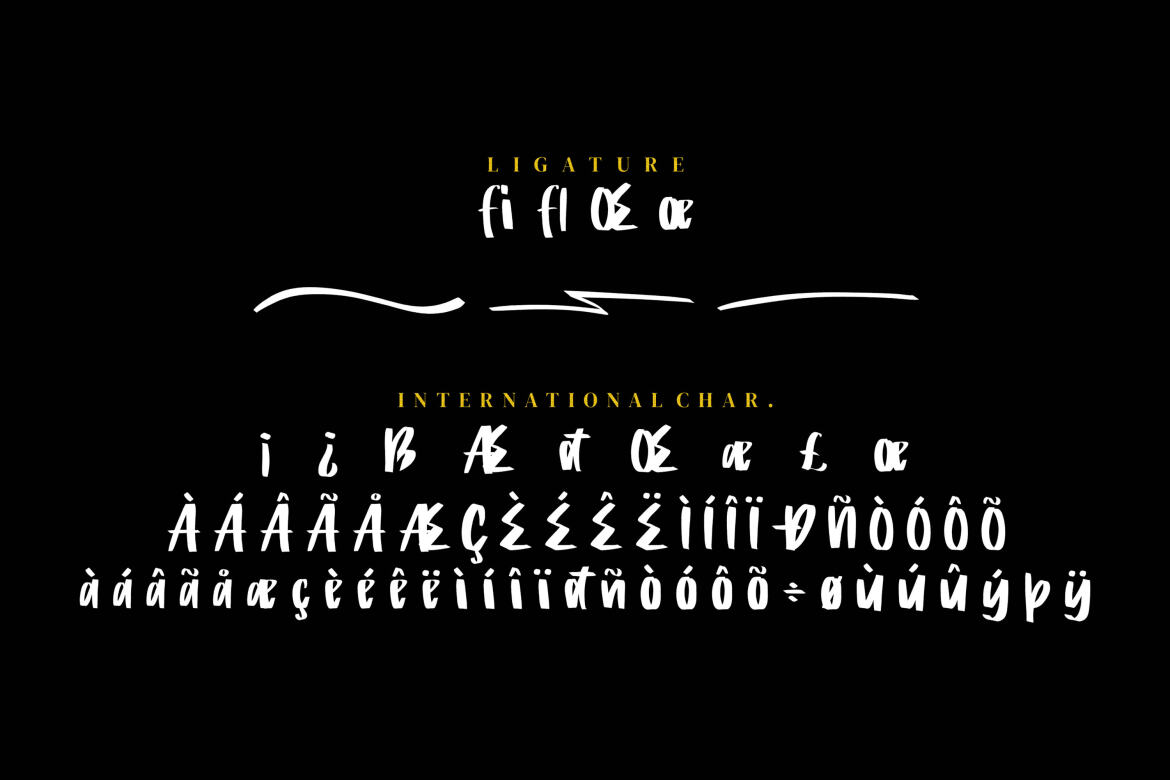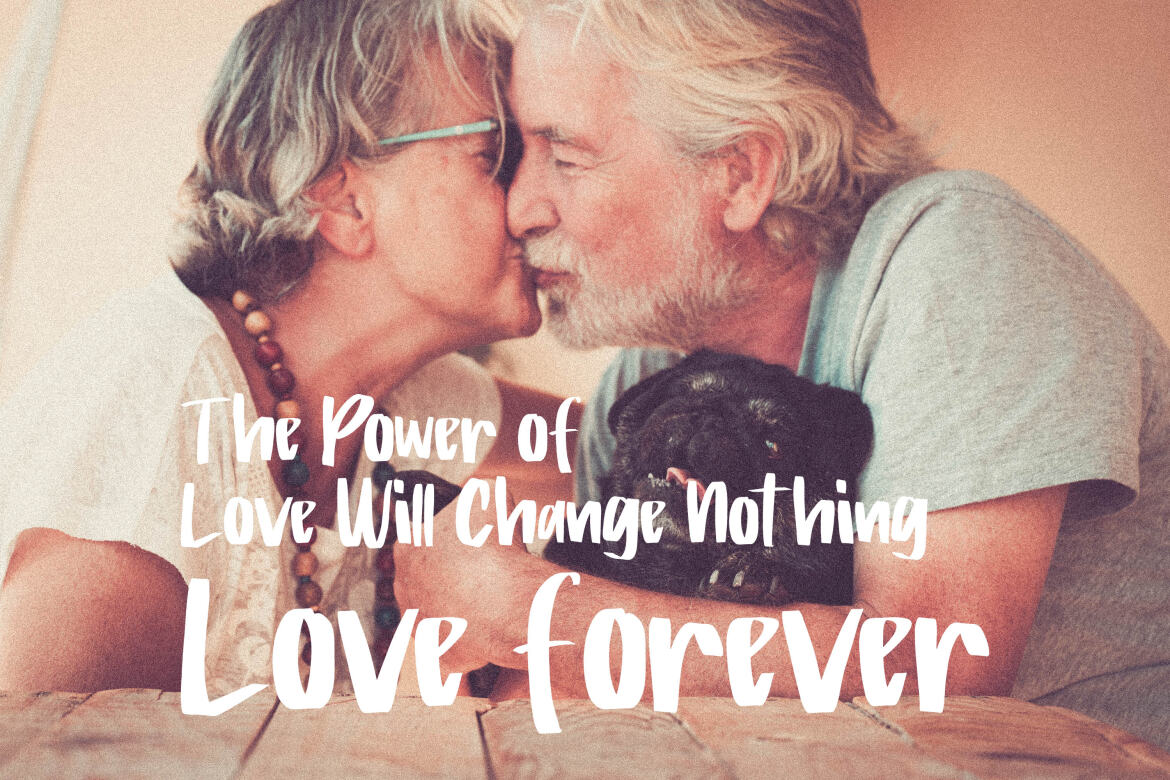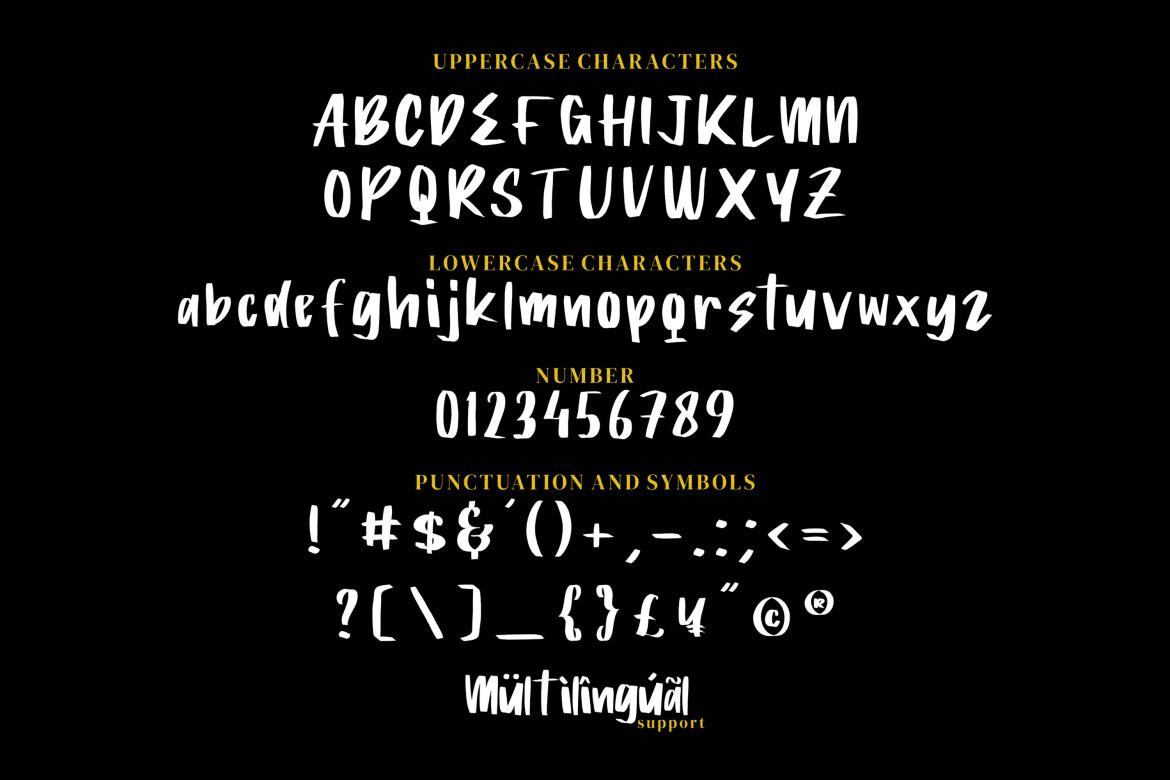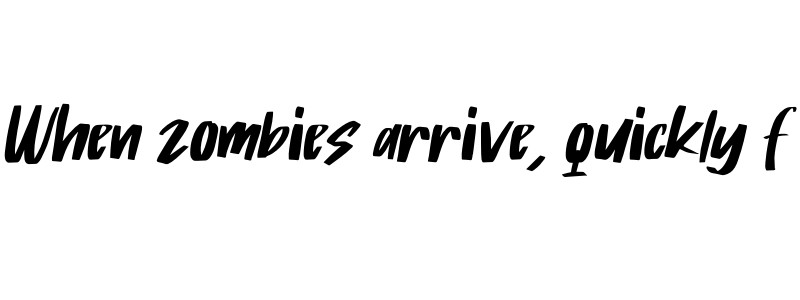
Roger Bold - FREE Brush Font
Roger Bold, Integritype Studio, is a textured brush font with a contemporary design style. It has a charming,authentic and relaxed feeling and is perfect for adding a natural touch to your designs.Fall in love with unique and authentic letters! Roger Bold are perfect for magazines, posters, branding, invitations, photography, watermarks, website titles, master signs, invitations, labels, logos, business cards and other design products.